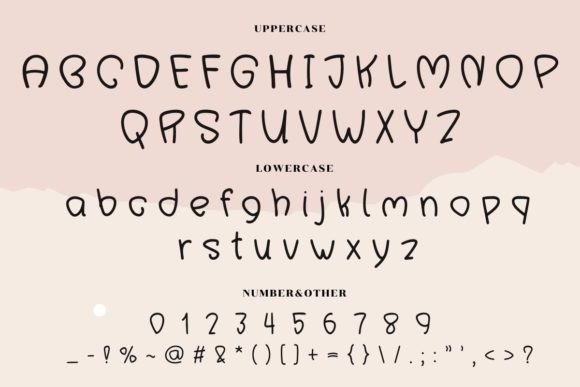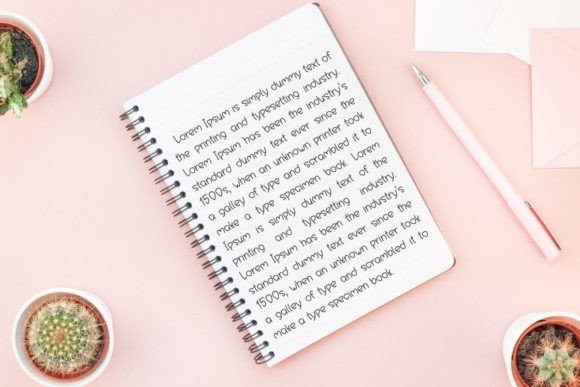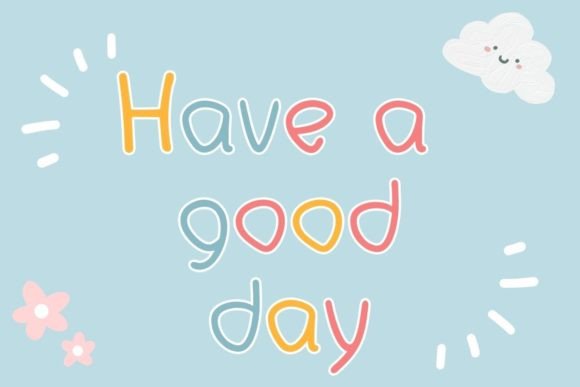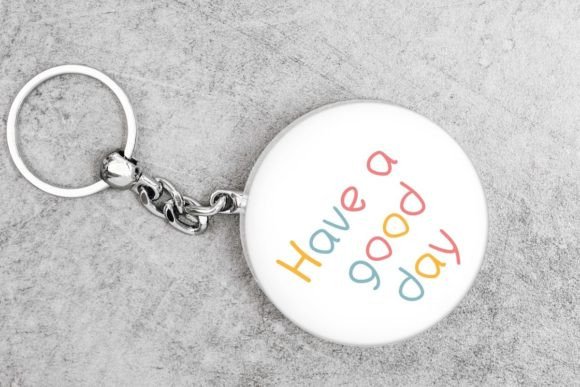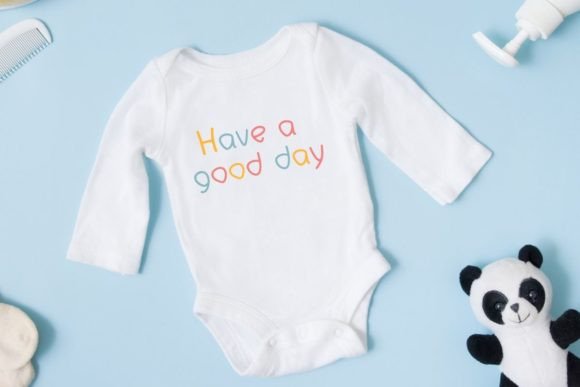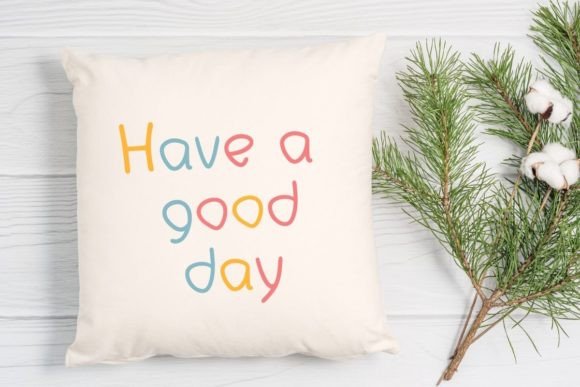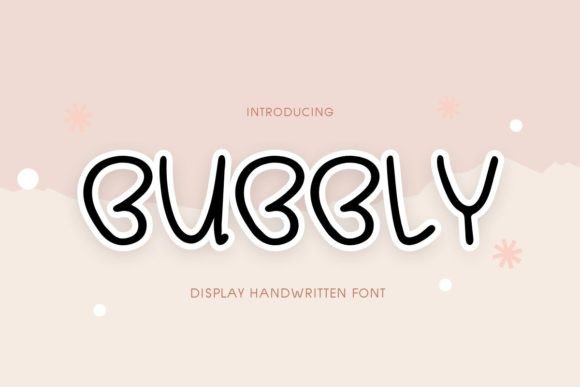
The Bubbly Font: A Groovy Addition to Your Design Arsenal
I’ll never forget the time I was working on a birthday invitation design for my niece’s party. I had the perfect concept in mind – colorful, playful, and fun – but I just couldn’t find the right font to bring it all together. That’s when I stumbled upon the Bubbly font, and it was love at first sight! 💕
With its charming, groovy vibe, Bubbly instantly elevated my design and made it perfect for the occasion. If you’re a designer, crafter, or creative hobbyist looking for a font that adds a cute touch to your projects, you’re in luck! In this article, we’ll dive into the world of Bubbly, exploring its features, uses, and some helpful tips and tricks.
An Honest Review of Bubbly Font
What I Love About Bubbly ✨
• ✅ Fun and playful vibe: Bubbly is the perfect font for designs that require a lighthearted and humorous touch.
• ✅ Cute and charming: This font is ideal for angel-themed designs, kids’ designs, birthday invitations, and more.
• ✅ Highly versatile: Bubbly can be used for various design projects, including t-shirt designs, crafting, stickers, sublimation, and more.
• ✅ Easy to read: Despite its playful nature, Bubbly remains clear and readable, even at smaller font sizes.
While Bubbly is an amazing font, it’s not without its limitations. For example:
• ⚠️ Limited use in formal designs: Bubbly’s playful nature makes it unsuitable for formal or professional designs, such as business logos or corporate branding.
• ⚠️ May not work well in long texts: While Bubbly is easy to read, it may not be the best choice for lengthy texts or paragraphs, as it can become overwhelming.
One of the best things about Bubbly is its OpenType features and glyphs. These allow you to add more variety to your text and make it more visually appealing:
• Stylistic alternates: Swap out letters and symbols with alternate versions to create a more unique look.
• Glyphs: Access special characters, such as hearts, stars, and animals, to add more whimsy to your text.
The Backstory of Bubbly Font
Bubbly was designed with one goal in mind: to create a font that’s fun, playful, and charming. The designer, inspired by the groovy vibes of the 60s and 70s, set out to craft a font that’s perfect for designs that require a cute touch. With its unique blend of modern and vintage elements, Bubbly is sure to bring a smile to your face.
Q: What type of designs is Bubbly best suited for?
A: Bubbly is perfect for designs that require a fun, playful, and charming touch, such as birthday invitations, kids’ designs, angel-themed designs, and more.
Q: Is Bubbly available in different languages?
A: Bubbly may not support all languages, but it does include a range of characters and glyphs to help you create multilingual designs.